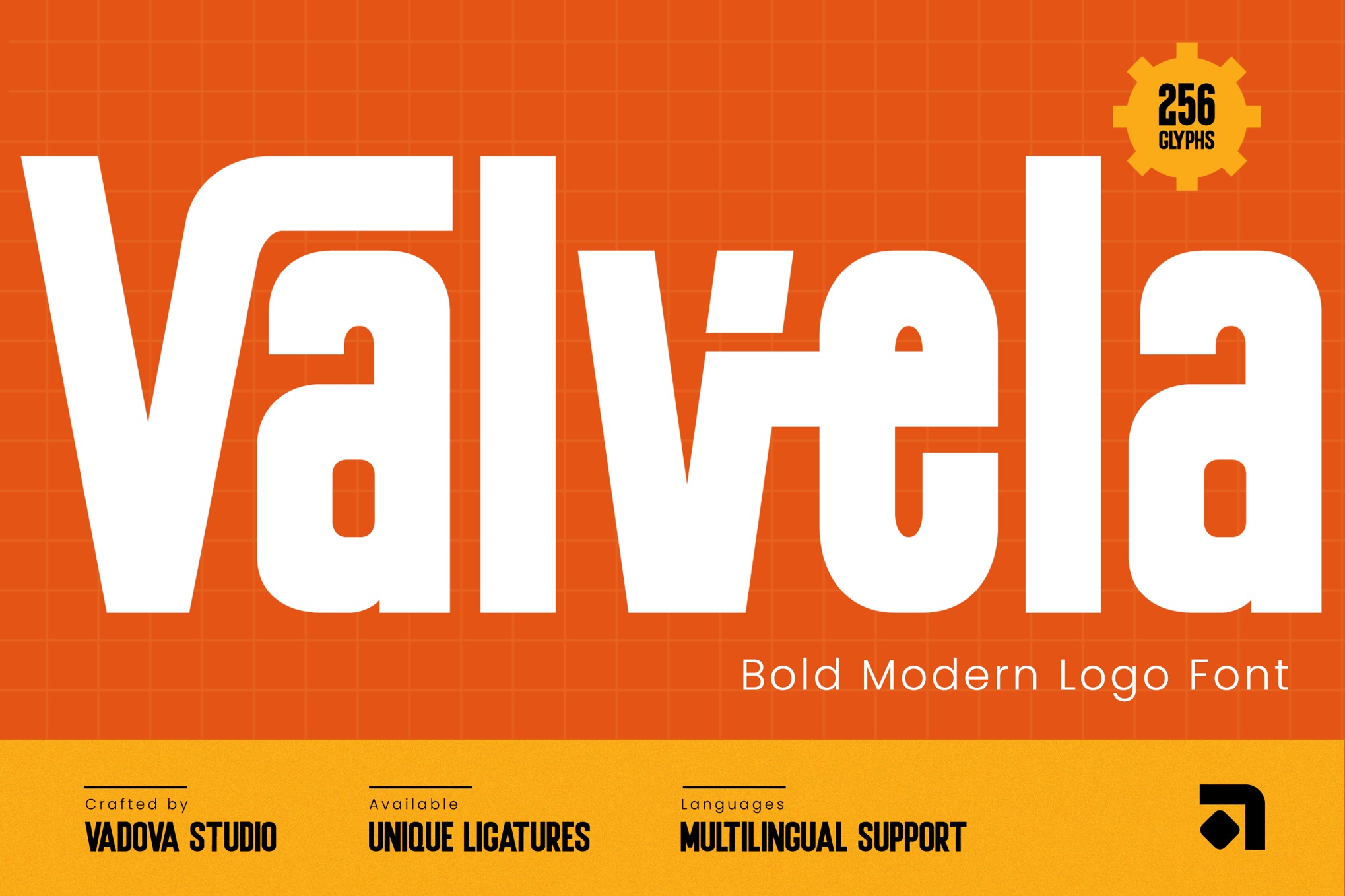
Valvela – Modern Logo Font
Valvela – Modern Logo Font is a flexible and reliable font created to fit multiple design needs, from branding and packaging to social media and editorial layouts. Valvela is a bold modern logo font featuring strong geometric letterforms with clean edges and high visual impact. The typeface includes uppercase and lowercase characters, numerals, punctuation, and multilingual support, along with unique ligatures for enhanced branding flexibility. Designed with a solid, condensed structure and balanced proportions, it delivers excellent readability for headlines and identity design.
Relevance and Use Case This font is highly relevant for branding projects that require strong visual presence and clarity. It works effectively for logos, business identities, marketing campaigns, posters, and social media graphics where bold headlines are essential. Its structured and modern appearance makes it suitable for corporate visuals, startups, fashion branding, and promotional materials that aim to stand out with a confident and professional tone.